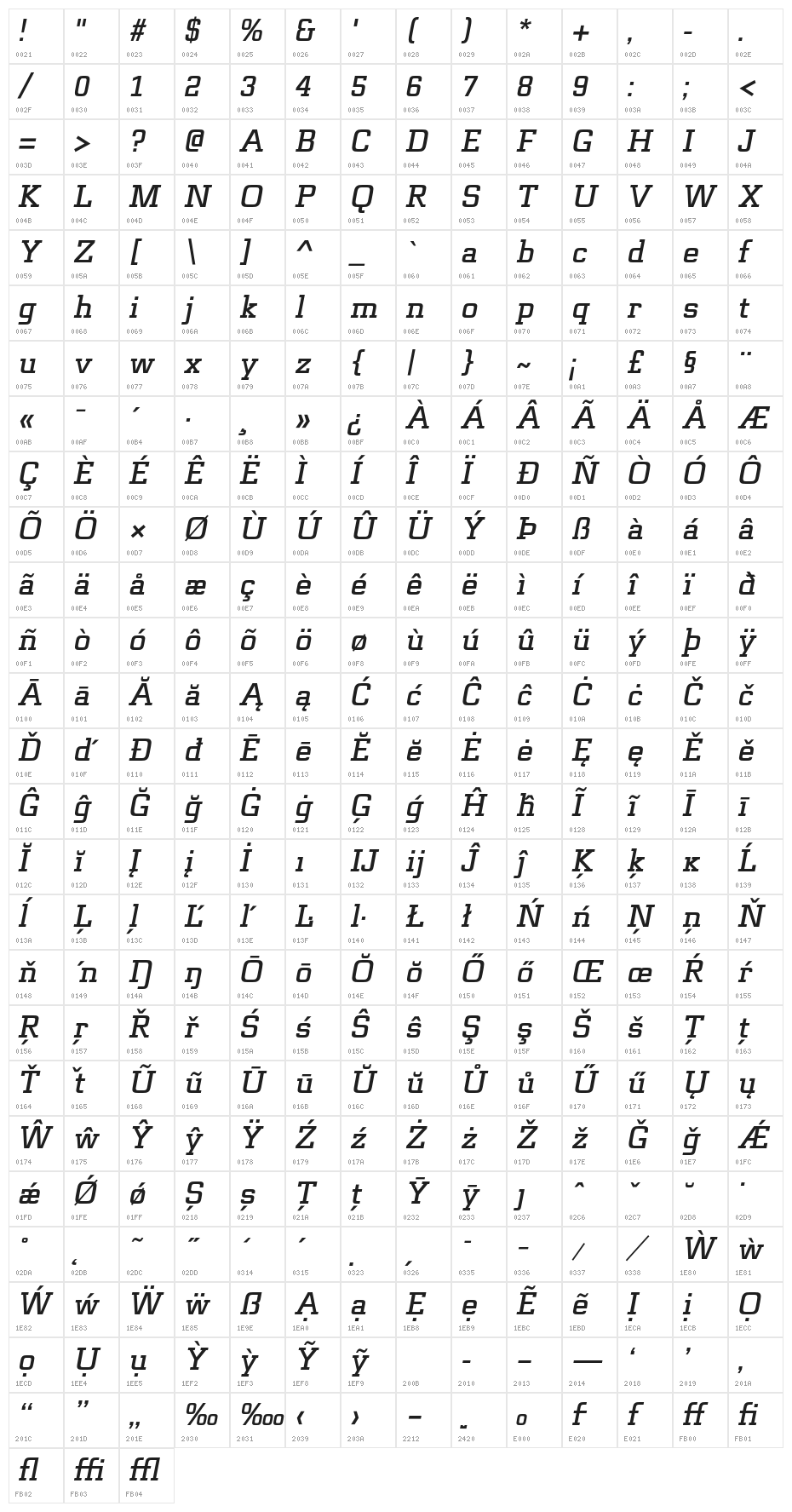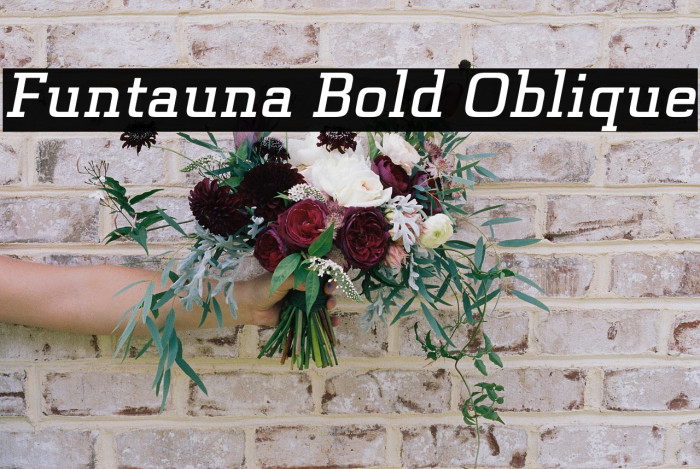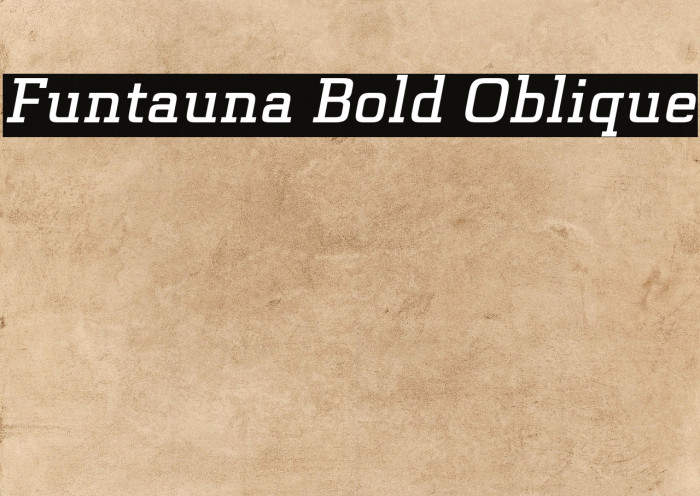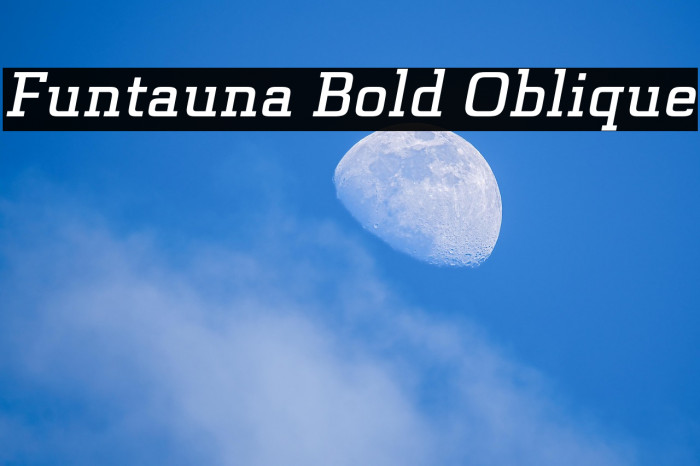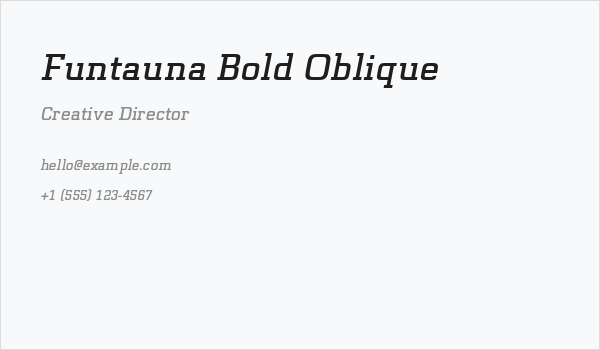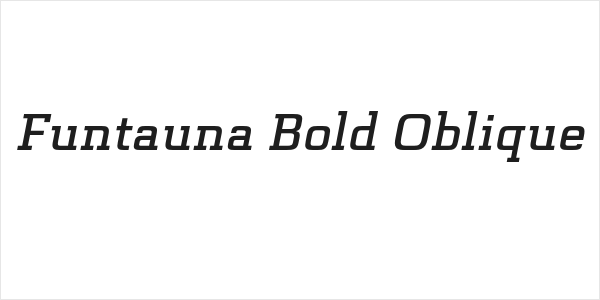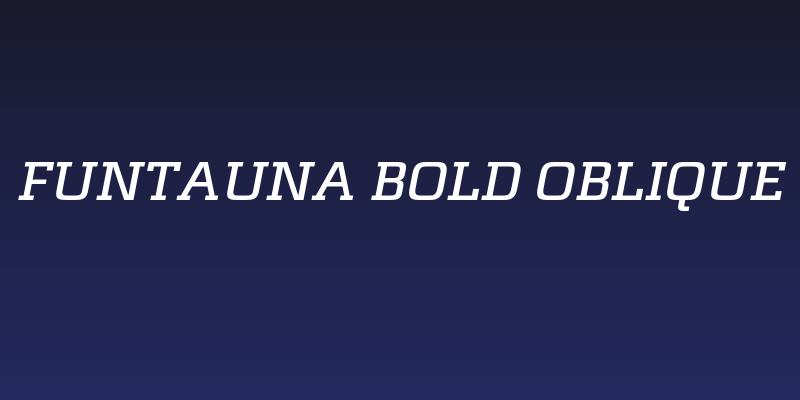
Funtauna Bold Oblique Font
Funtauna Bold Oblique Description
This font features a bold and oblique style, characterized by its strong, slanted letterforms. The uppercase and lowercase letters maintain a consistent slant, giving the typeface a dynamic and forward-moving appearance. The numerals and special characters follow the same oblique style, ensuring uniformity across all characters. The strokes are thick and consistent, providing a robust and impactful look. This font is well-suited for projects that require a sense of motion and strength, such as sports branding or dynamic advertising.
Proposed ProjectsIdeal for sports branding, dynamic advertising, and headlines that need a sense of motion.